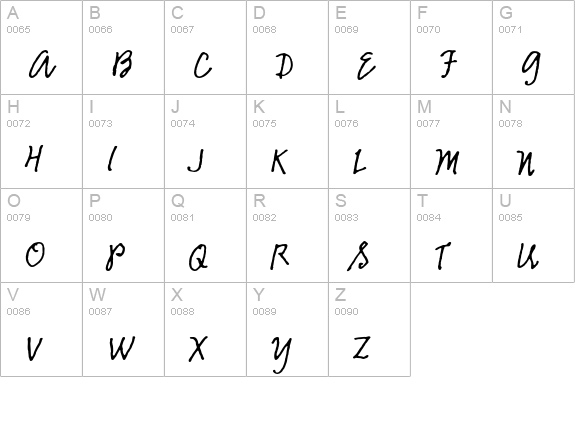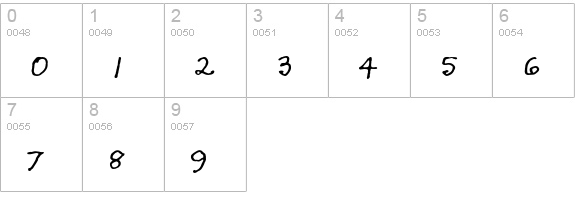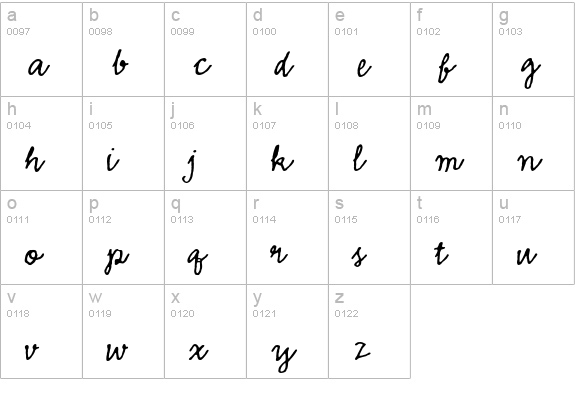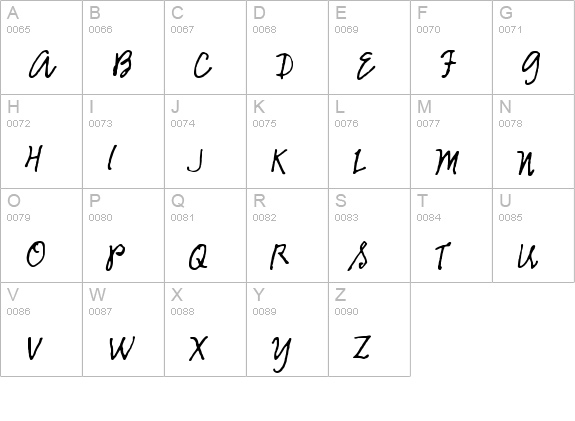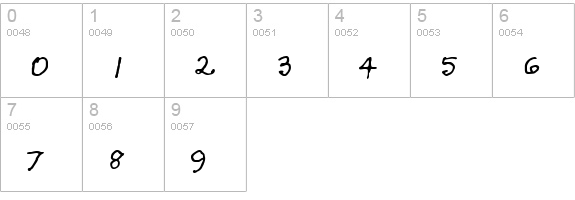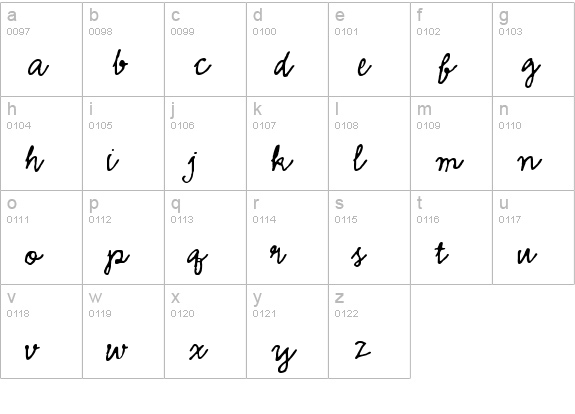
Emmascript MVB Std Font Details
Emmascript MVB Std font is a versatile and elegant typeface that exudes sophistication and modernity. Its sleek and stylish design makes it perfect for a wide range of projects, from branding to editorial design. This font features clean lines and a balanced weight, making it easy to read and visually appealing. One of the best things about Emmascript MVB Std font is that it is completely free to download. You can easily access this stunning font at FontsMarket.com, where you can quickly and conveniently enhance your design projects with its timeless beauty. Whether you're working on a website, a poster, a brochure, or any other creative endeavor, Emmascript MVB Std font is sure to elevate your work to the next level. Download this versatile font today and unleash your creativity like never before.